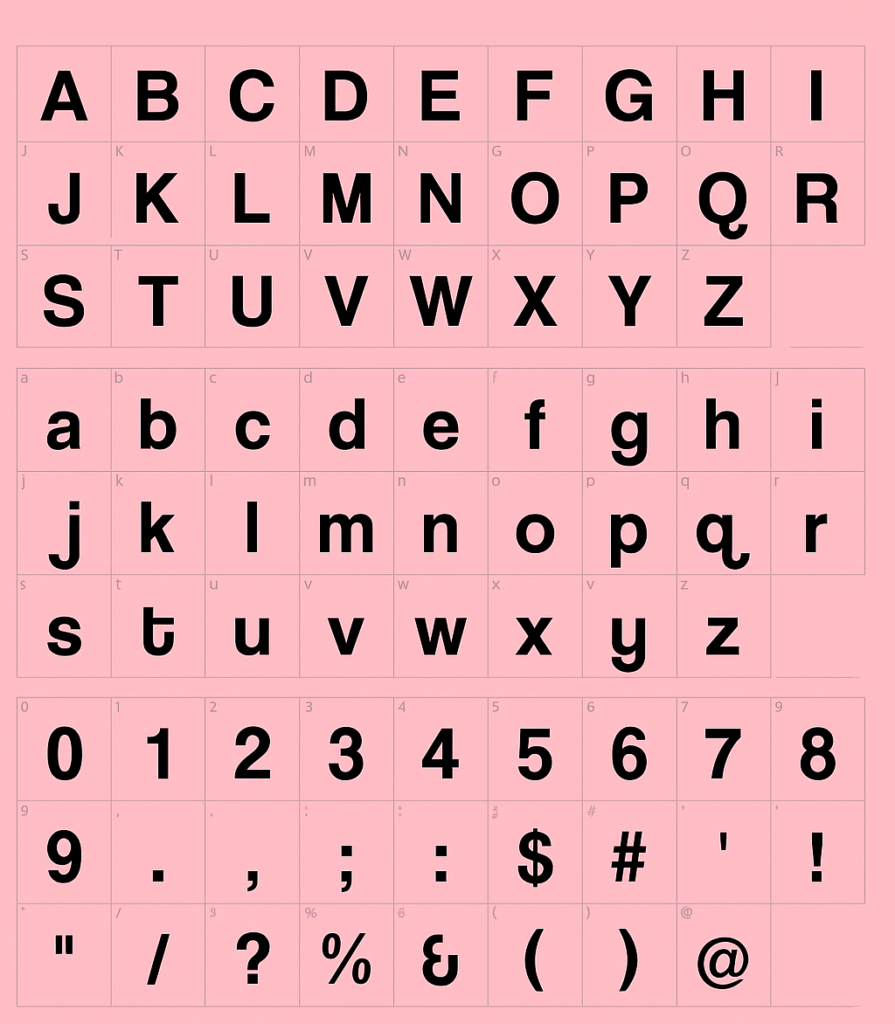
Coolvetica Font: Introduction
A typographic element becomes a design tool that serves to establish project personality and hierarchy structure and sets the overall project mood. The typeface Coolvetica preserves its vintage nostalgia while presenting a stylish modern character in design. The typeface Coolvetica derives from retro signage to create a wonderful balance of professional character combined with playfulness.
This detailed guide investigates the Coolvetica typeface starting from its historical background through its design elements and usage opportunities to its suitable substitutes and its enduring popularity among designers who wish to combine retro-inspired motifs with modern design elements.
Overview of Coolvetica Font
The sans-serif typeface Coolvetica exists as a design product by Ray Larabie through Typodermic Fonts. Free software distribution by the developer resulted in widespread popularity because of its friendly geometric shapes alongside retro advertisements from the 1970s.
Coolvetica presents a retro-looking and modern typeface because of its simple letter shapes and rounded design that creates easy readability. Coolvetica enhances any design content like logos or posters or t-shirts or website headers while adding professional appeal at an unobtrusive level.
History and Inspiration Behind Coolvetica
Max Miedinger used 1957 to work on Helvetica development in Switzerland which produced the font typeface Coolvetica. The widespread adoption of Helvetica during the 1970s made it the eminent typeface for commercial signs and advertising throughout North America for an extended period of time.
Canadian type designer Ray Larabie who developed hundreds of freeware high-quality fonts found his inspiration in this era to create Coolvetica. Larabie transformed Helvetica into a new version by employing the typographic characteristics of ’70s display text which unified letters yet finished them with deliberate modifications for making logos and shop displays more eye-catching.
The 2000s introduction of Coolvetica became popular among designer professionals who appreciated both its free distribution format and bold design features.
Key Features of Coolvetica
Coolvetica offers several features that distinguish it from traditional sans-serif fonts:
1. Rounded Terminals
Unlike the more mechanical Helvetica, Coolvetica softens the look with rounded terminals, giving it a warm and approachable feel.
2. Tight Letter Spacing
Coolvetica boasts an ultra-condensed spacing, making it ideal for tight-fitting, visually impactful headlines and logos.
3. Custom Ligatures
Larabie included custom ligatures and stylistic alternates in the font set, which enhance its usability in unique branding applications.
4. High Legibility
Despite its stylized appearance, Coolvetica remains highly legible, especially in larger display sizes.
5. Variations and Styles
The original release featured only one weight, but newer versions—particularly through Typodermic Fonts’ professional offerings—include multiple weights, oblique styles, and expanded character sets for multilingual support.
Applications of Coolvetica Font
Coolvetica is especially effective when used in designs that benefit from a retro-modern hybrid look. Here are some of the most popular use cases:
1. Logos and Branding
Coolvetica provides an excellent option for logos due to its neat appearance coupled with its offbeat style which suits brands wanting to create nostalgic or playful visual representations. This font succeeds especially well in branding technology startups and cafés and fashion lines together with other companies featuring retro-futuristic looks.
2. Posters and Flyers
Due to its tight kerning and bold forms, Coolvetica commands attention on event posters, flyers, and album covers. It’s often seen in creative industries where aesthetics matter.
3. Web and App Headers
The readability of Coolvetica is moderate when used for extensive writing but it serves well in headlines and promotions due to its attractive design.
4. Merchandise and Apparel
Designers love using Coolvetica on t-shirts, tote bags, stickers, and other merchandise for its versatility and aesthetic value.
5. Social Media Graphics
Coolvetica’s distinctive look performs well in the realm of Instagram graphics, YouTube thumbnails, and TikTok video overlays, grabbing user attention with bold lines and retro charm.
Notable Examples of Coolvetica in Use
While Coolvetica may not have the corporate saturation of Helvetica, it has carved out a niche in indie and commercial projects alike:
- Music Bands and Record Labels use it to convey a retro vibe reminiscent of vintage vinyl records.
- Small Businesses, especially in the creative, culinary, or fashion industries, use Coolvetica in logos and signage.